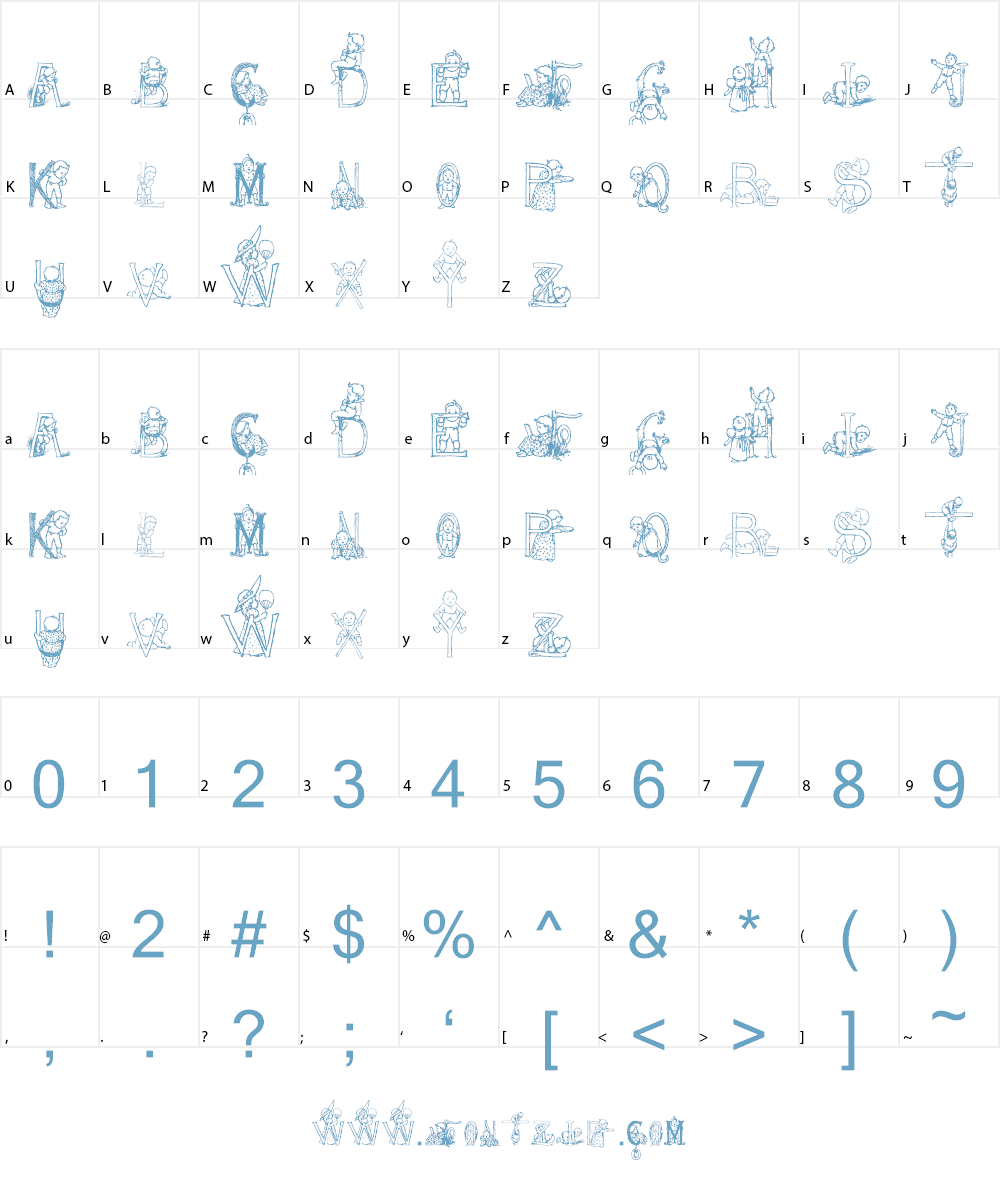
HFF Kids Stuff is based on an alphabet created by Mary Mapes Dodge and published
in St. Nicholas an Illustrated Magazine for Young People XXXIV: Part 2: 667. I
found the images used in this font at Clipart ETC http://etc.usf.edu/clipart/